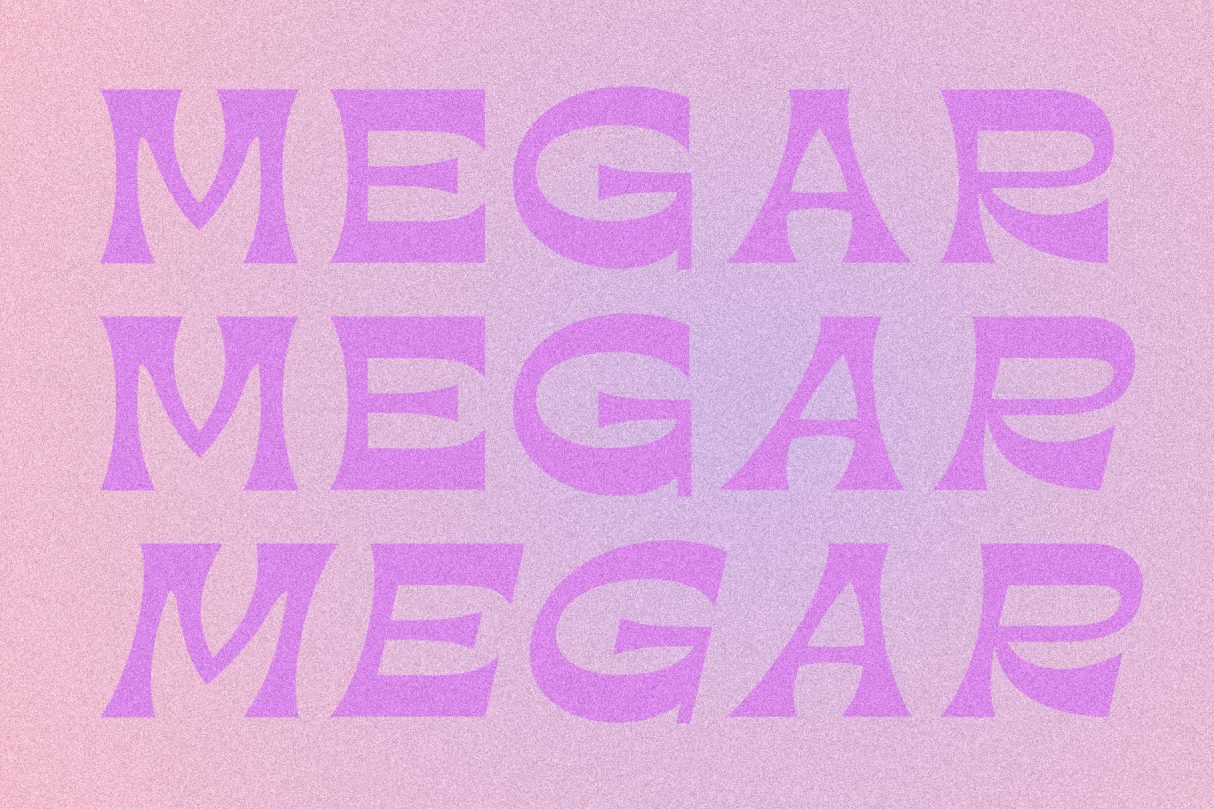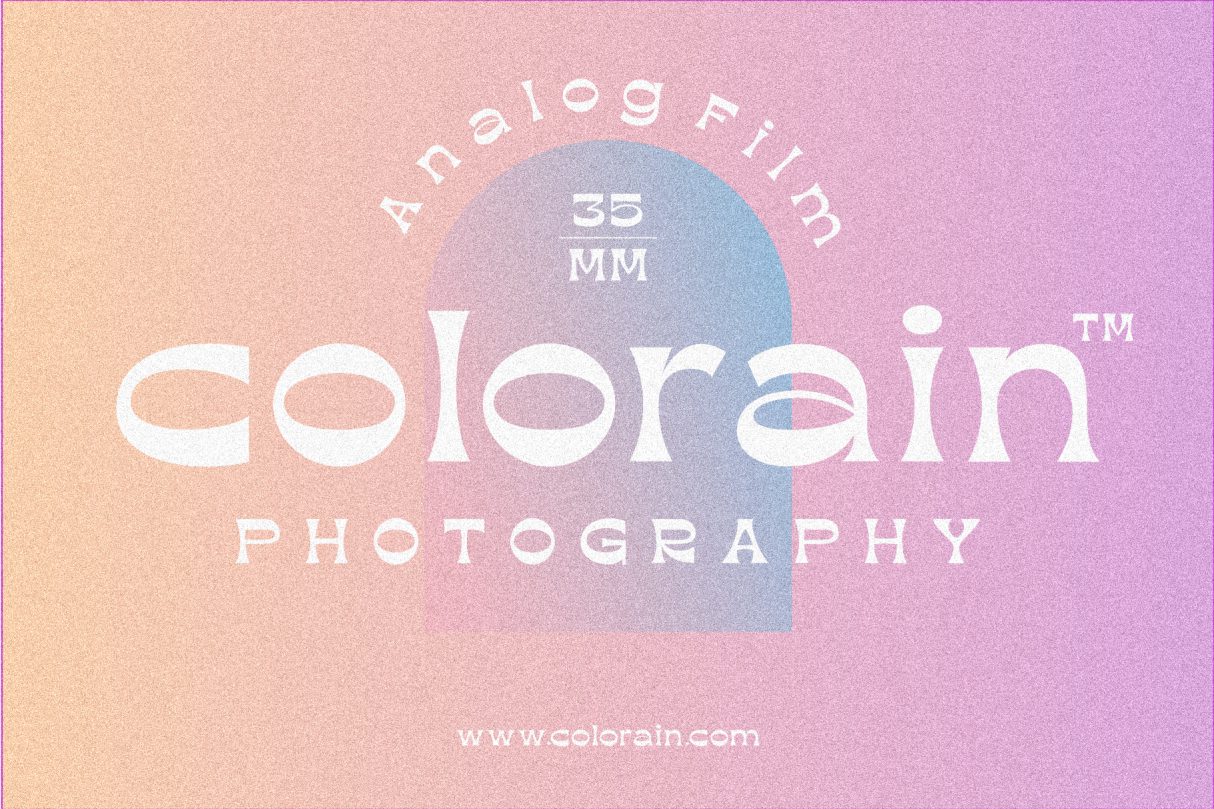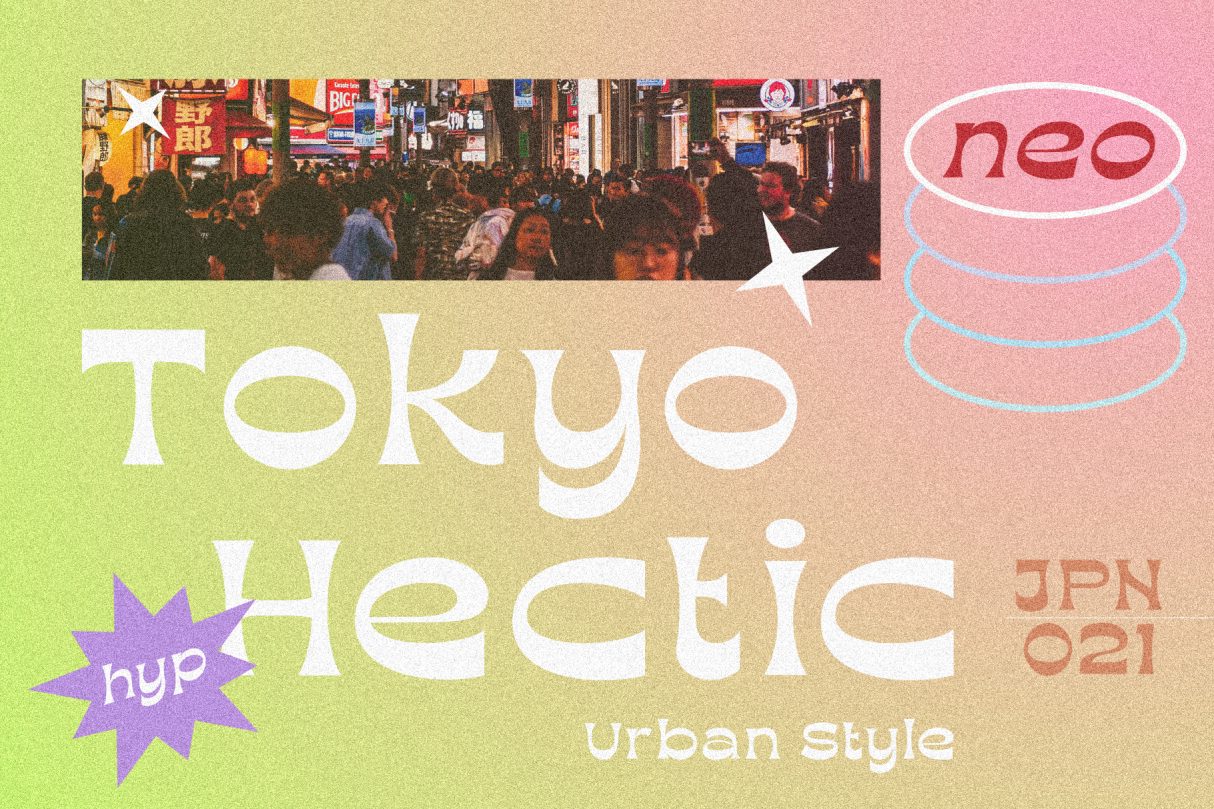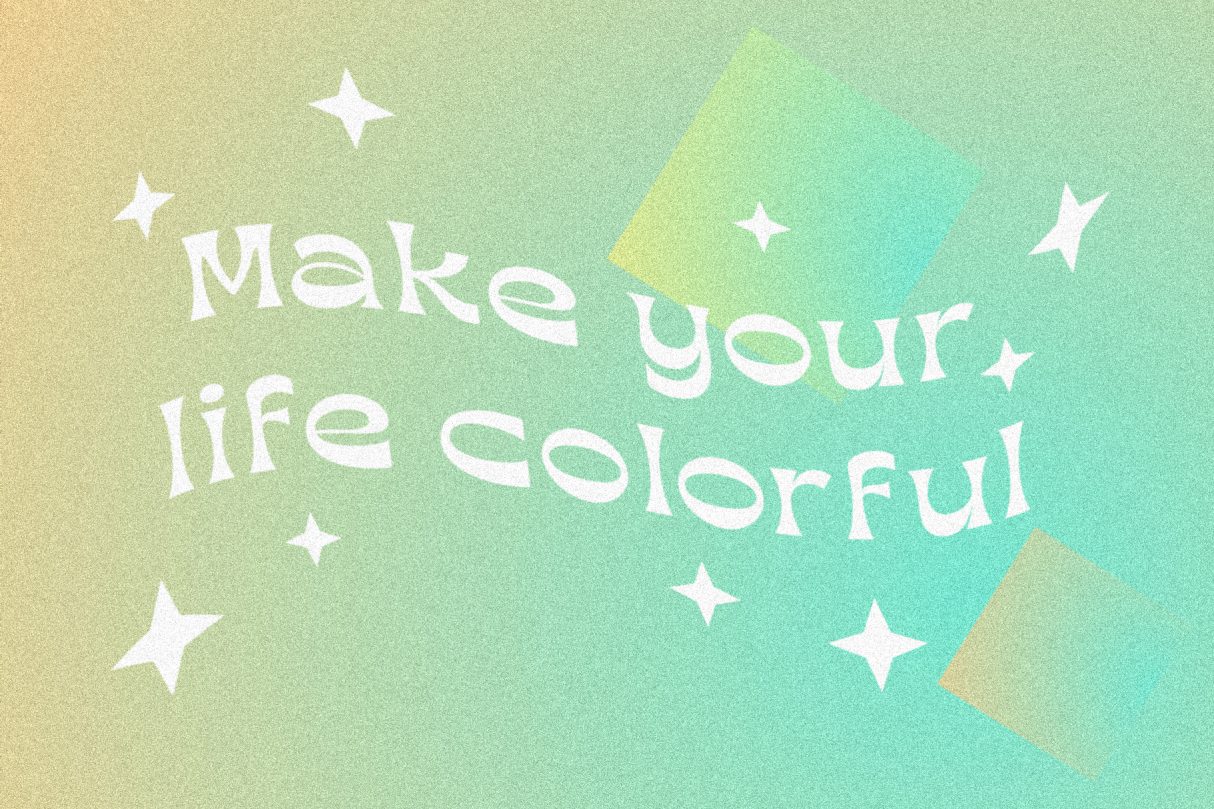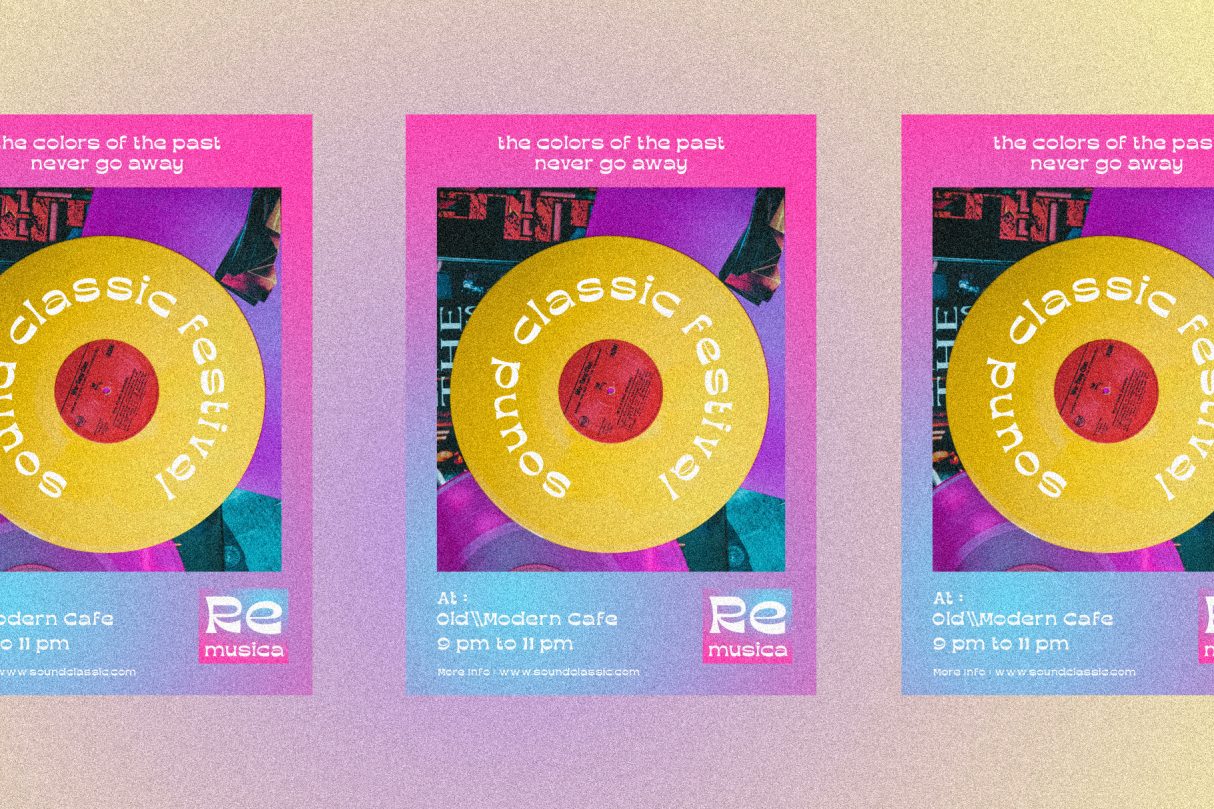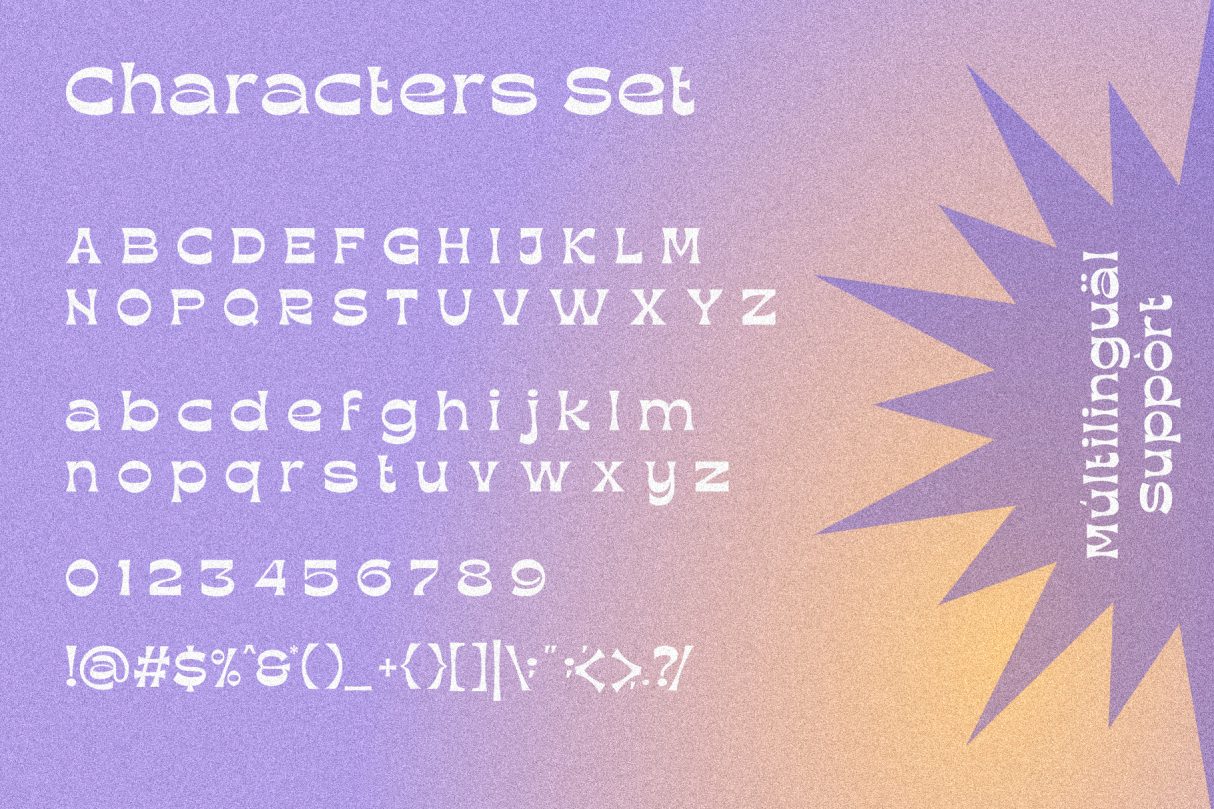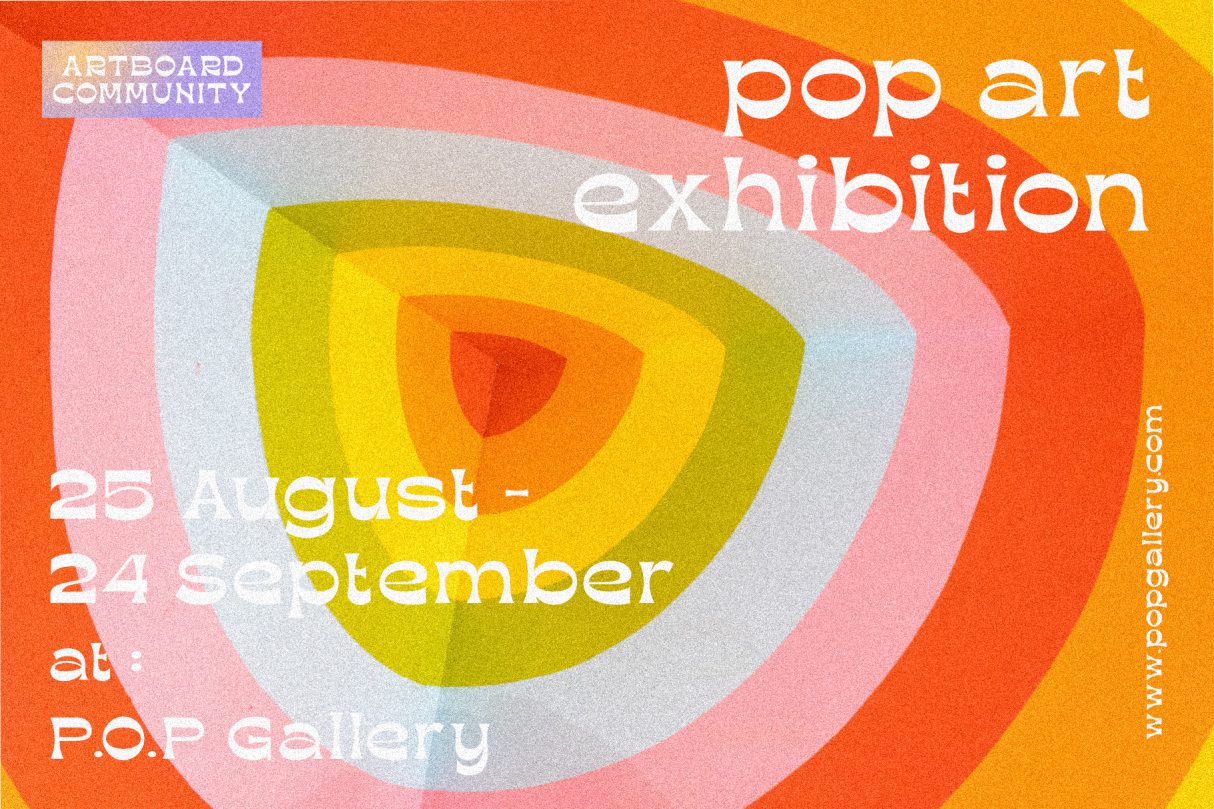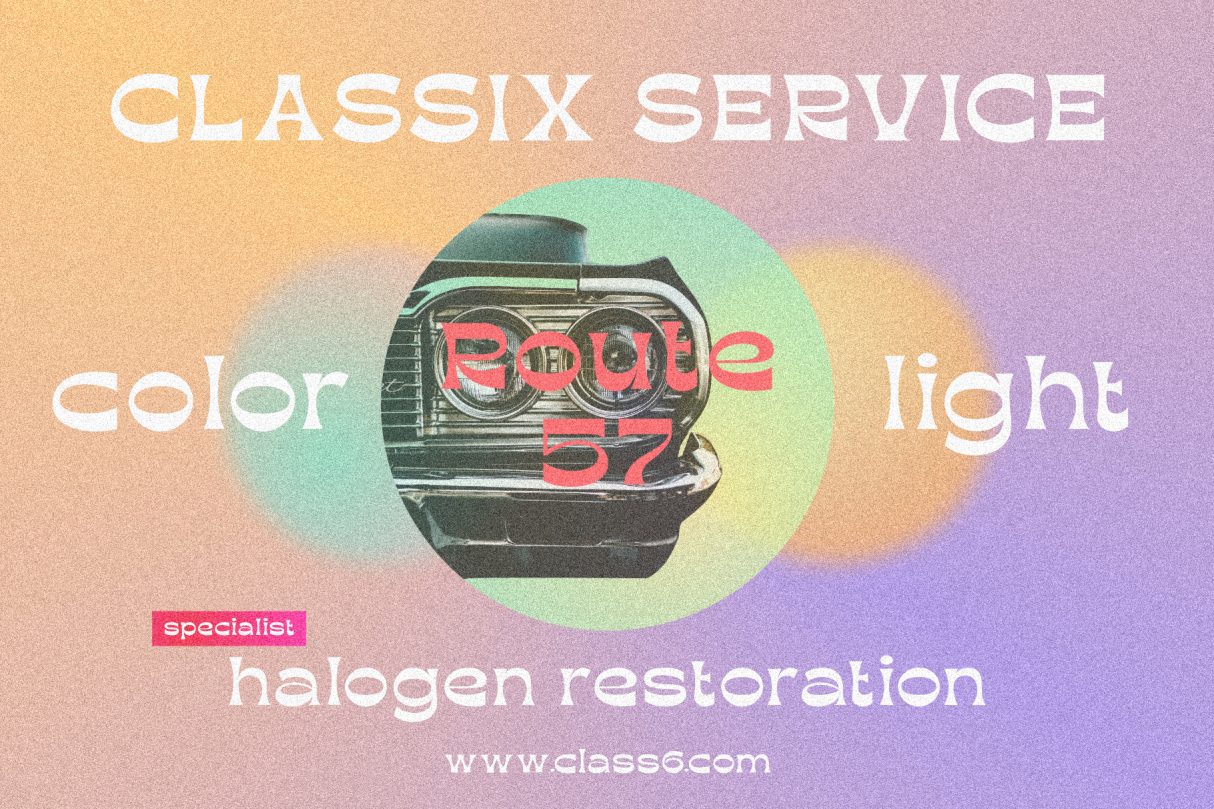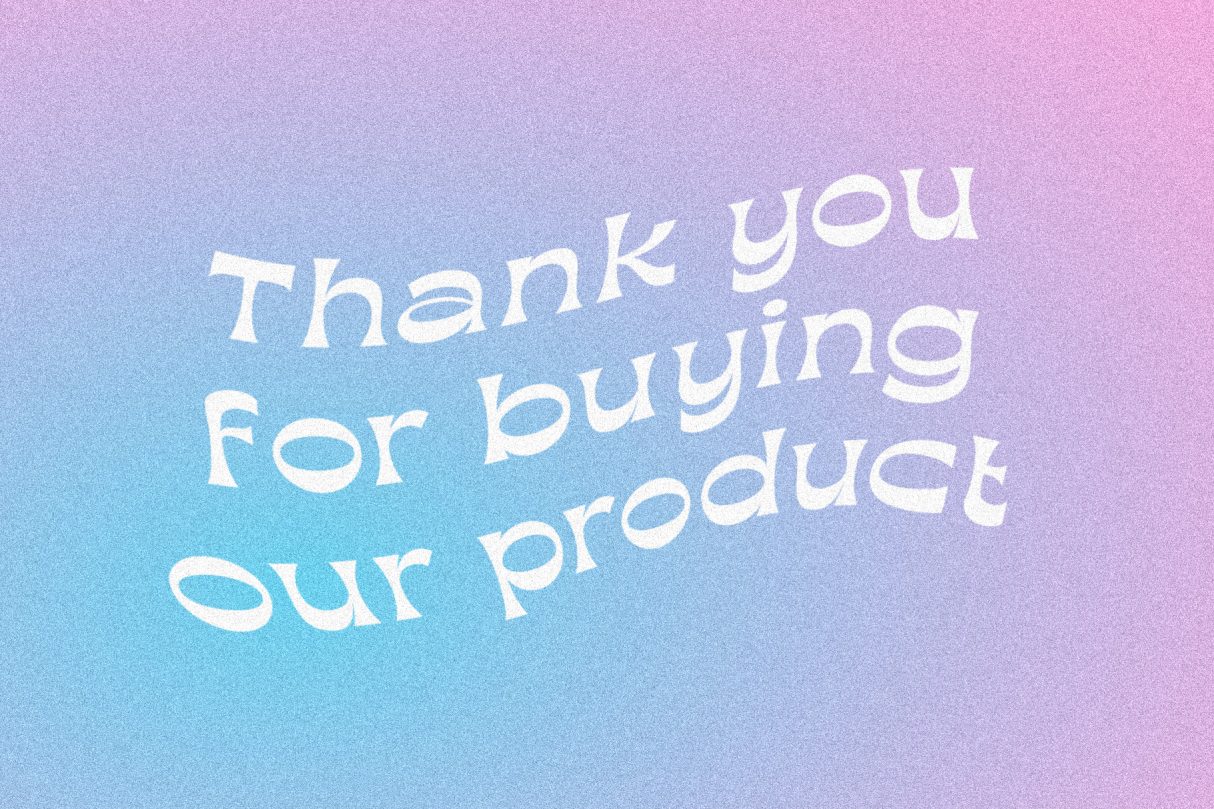
Megar is a display font with a bold retro feel and available in 2 styles, regular & oblique. It is suitable to complement your work with a retro or pop art theme.ย Get this font right now! This product includes: